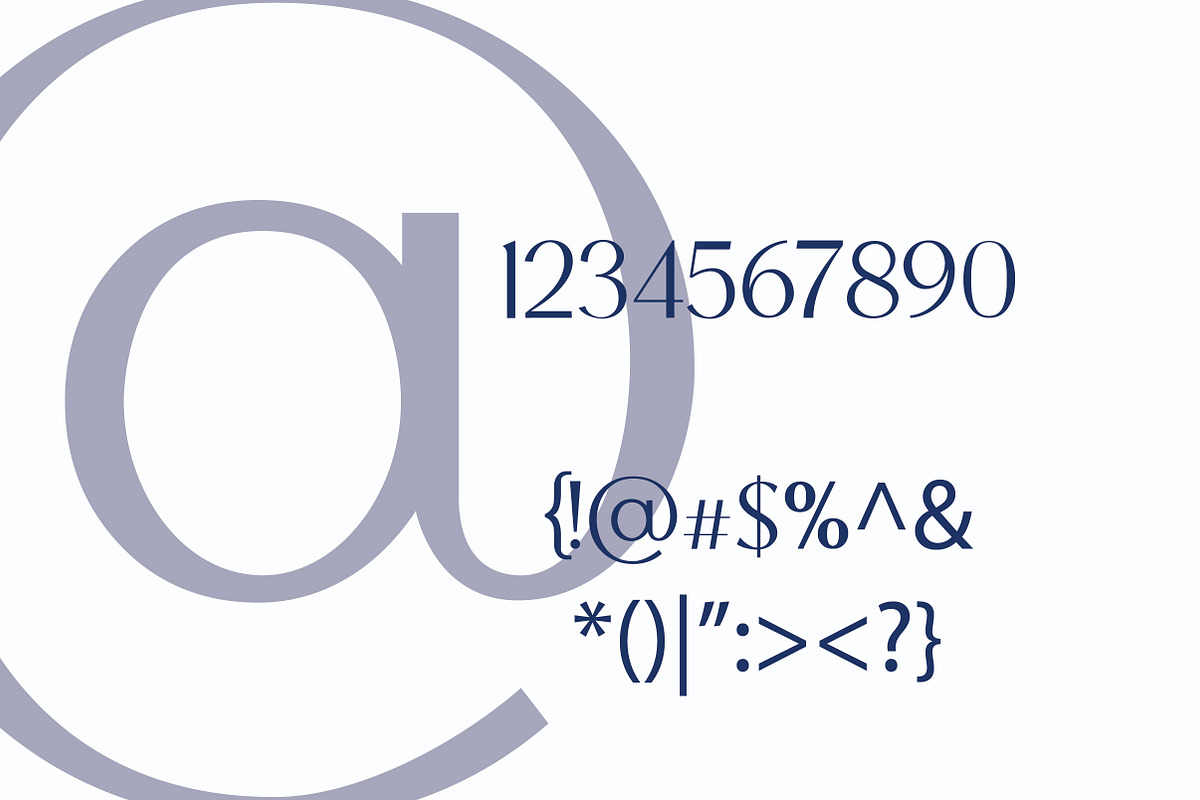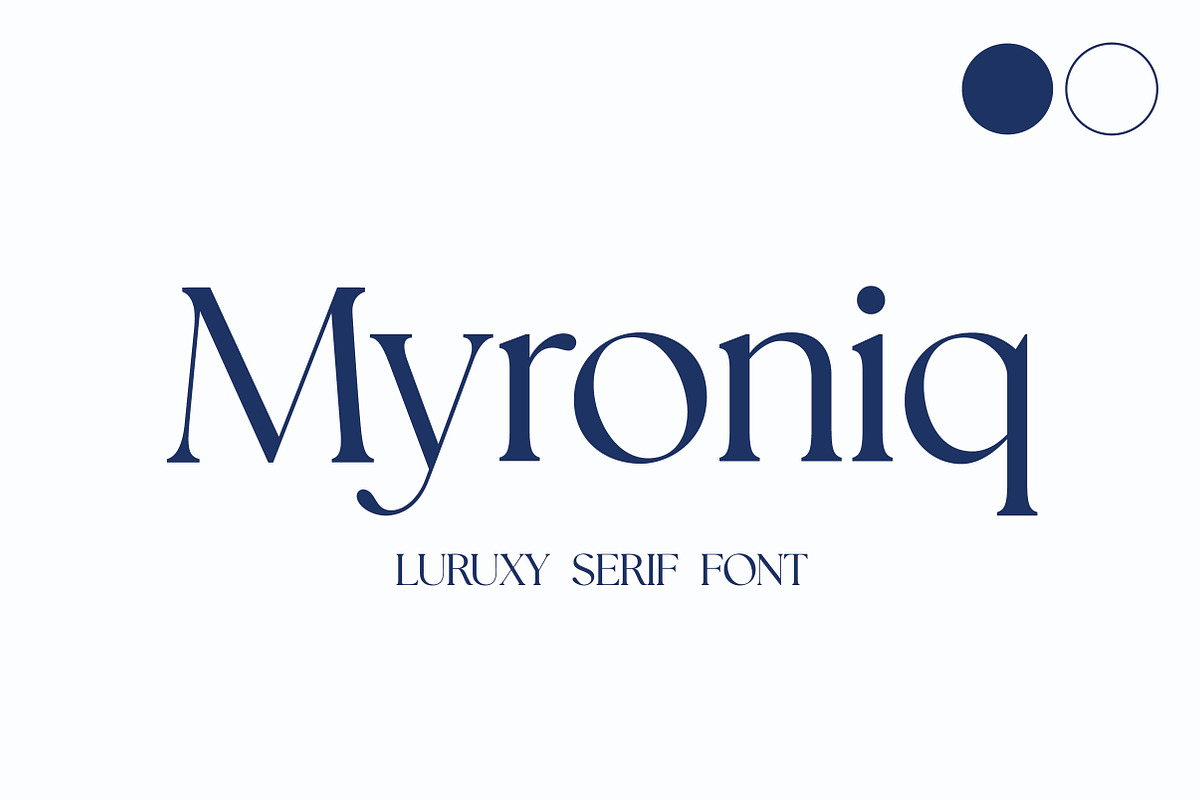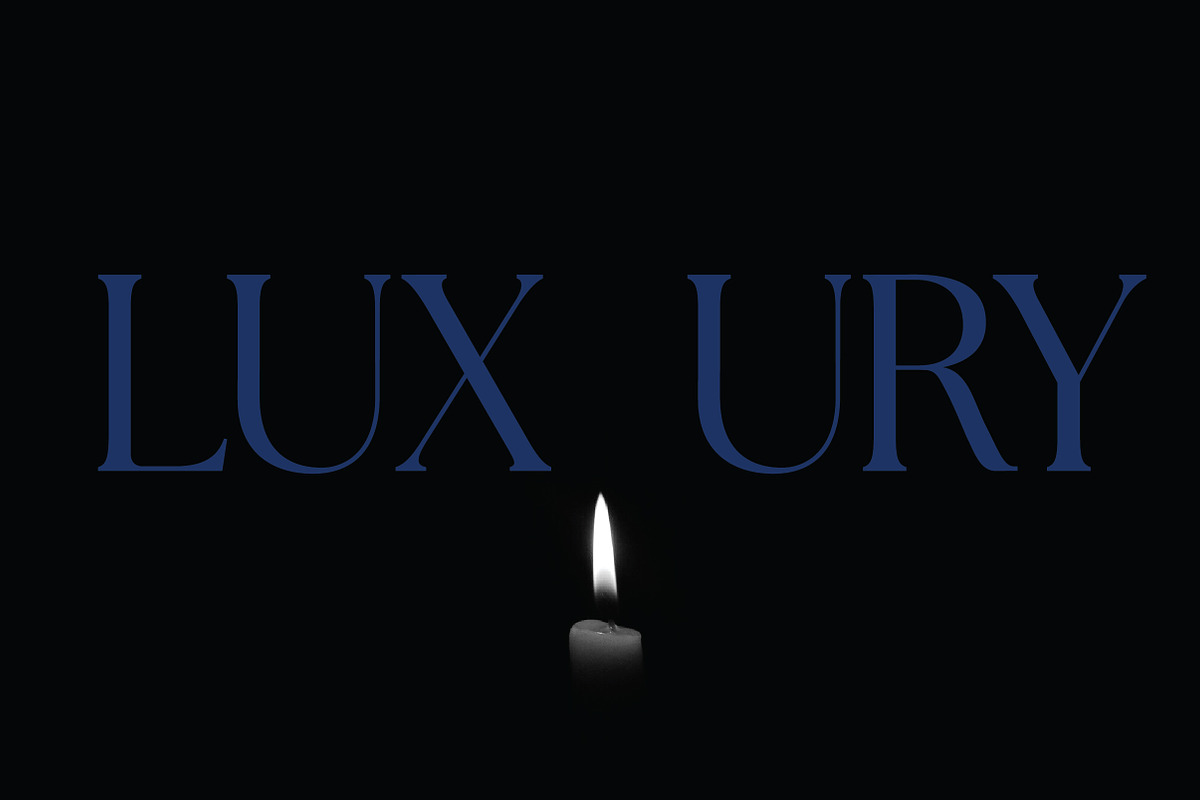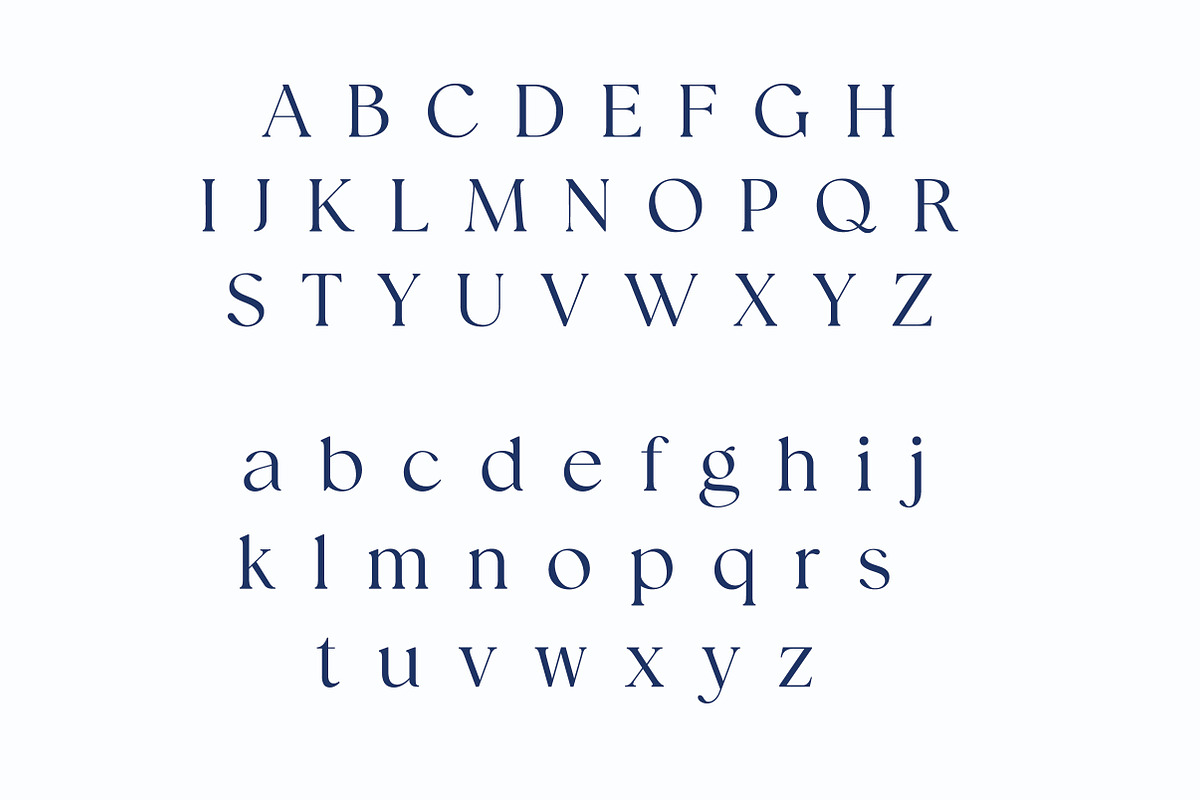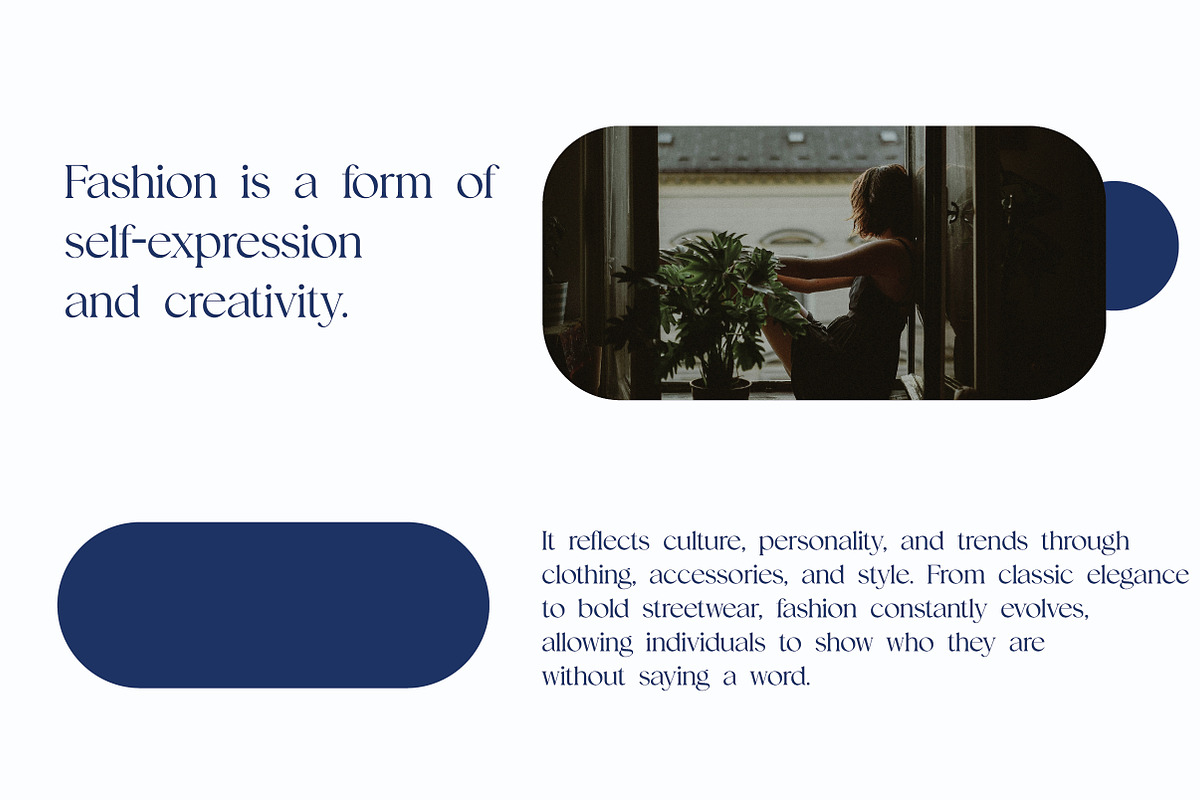
Myroniq | Modern Elegant Serif Typef
Myroniq is a modern and elegant serif typeface crafted to deliver clarity, sophistication, and balance. With clean lines, sharp serifs, and smooth curves, the Regular style is perfect for branding, editorial design, product packaging, logos, websites, and refined print materials. Its versatile structure ensures excellent legibility and a polished tone in both headlines and body text, making it a professional choice across digital and print platforms.
Myroniq is the ideal serif font for creatives who value modern minimalism, refined elegance, and versatile functionality in their typography.